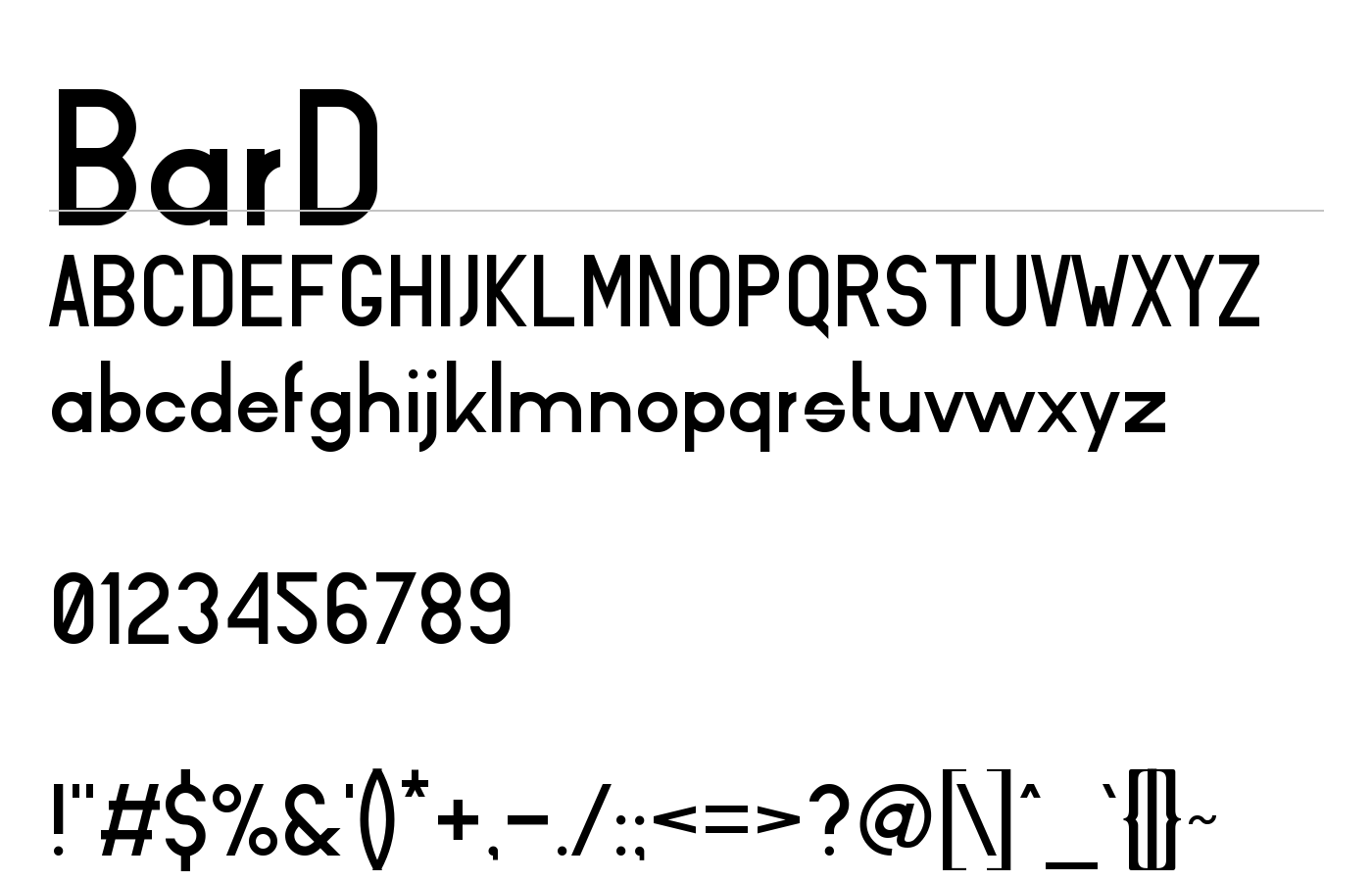
BarD is a modern, condensed sans serif font with a clean, geometric style and distinctive sharp angles. Its slightly tall x-height combined with narrow letterforms makes it ideal for sleek, contemporary branding and headlines where space is limited but clarity is key. This font conveys a professional yet cutting-edge personality, perfect for tech, fashion, or editorial projects needing a bold, confident look.
BarD Font